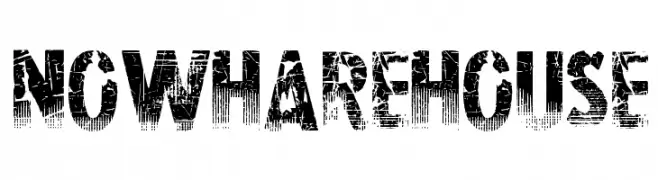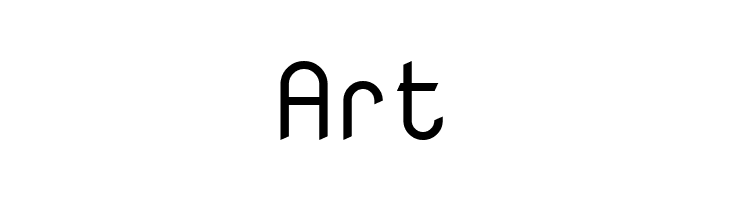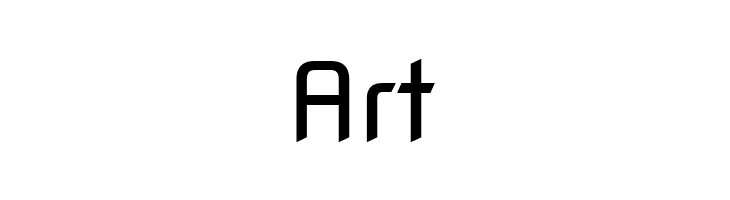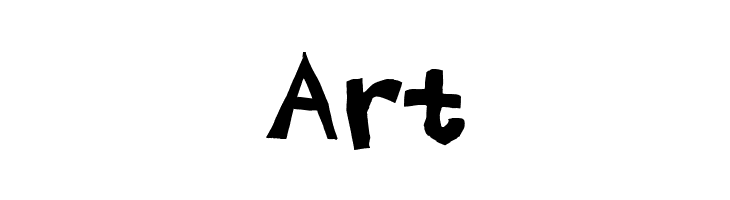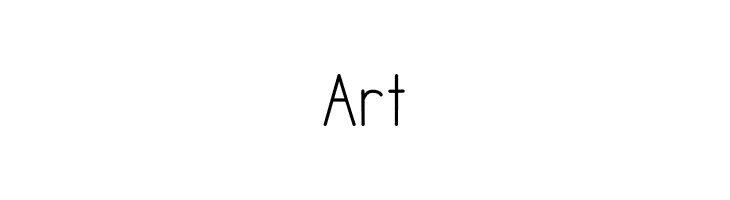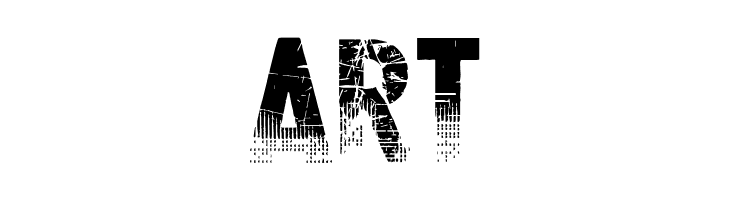
• Nova Square
A modern, geometric font with a square-like structure and consistent stroke width.
• NovaMono
A modern, monospaced font with a clean, geometric design.
• NovaSOLIDSOLID
• now you see me, now you dont
A distressed, grungy font with bold, textured characters.
• Nowharehouse
A bold, distressed font with a grunge, industrial style.
• Nox
An artistic and abstract representation of Braille with decorative elements.
• Nozhnitsy
• NTR
A modern, clean sans-serif font with rounded edges and uniform strokes.
• NTS Akkhara
A modern, geometric sans-serif font with clean lines and balanced spacing.
• NTS Akkhara Bold
A modern, rounded sans-serif font with a clean and approachable style.